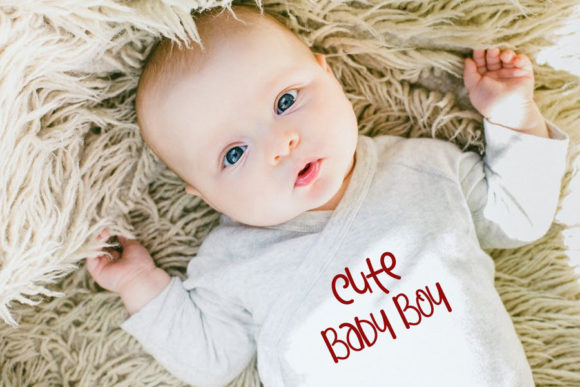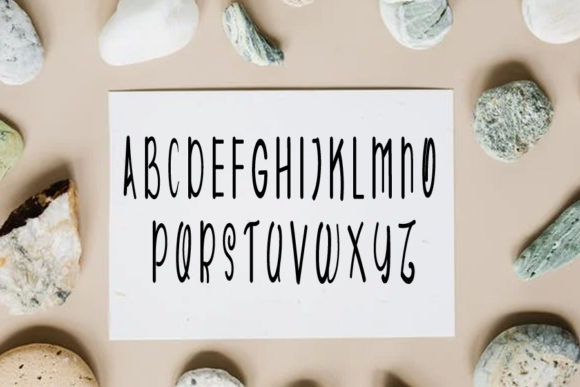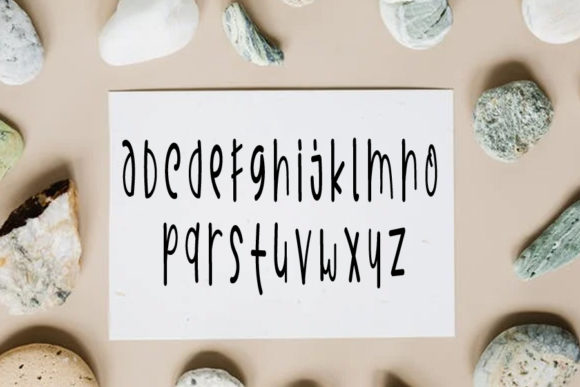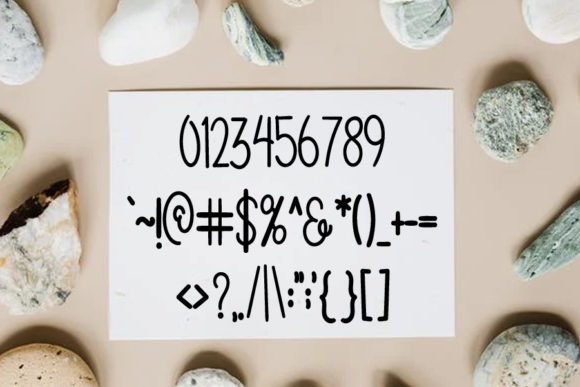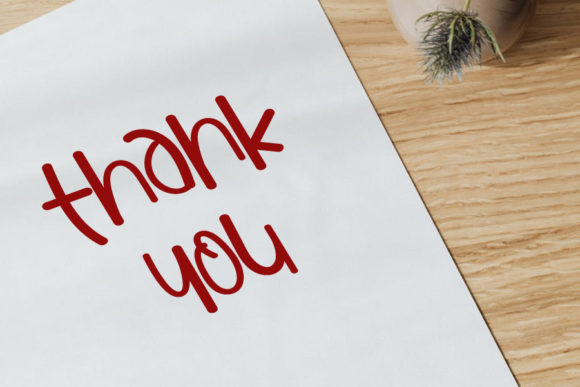
Unlock the Fun with Hello Kids Font
Remember the thrill of designing a new poster or flyer for a children’s event? The excitement of choosing the perfect font to capture the playful atmosphere and grab the attention of your young audience. For designers, selecting the right font can make all the difference in creating an impactful visual experience. That’s where the Hello Kids Font comes in – a cool, friendly, and trendy display font designed to add a touch of whimsy and fun to any design.
Whether you’re working on a project for a kids’ party, a nursery, or a children’s book, the Hello Kids Font is an invaluable tool for designers. Its versatility and charm make it perfect for a wide range of applications, from posters and flyers to digital graphics and print materials. With the Hello Kids Font, you can explore endless possibilities and bring your designs to life in a way that’s both engaging and memorable.
Hello Kids Font Key Features
- Font Family: Hello Kids Font is a sans-serif font family designed for children’s educational materials.
- Unique Characteristics: Features rounded edges and a child-friendly design, making it perfect for educational materials, children’s books, and websites.
Review of Hello Kids Font
Hello Kids Font is a fun, playful typeface designed specifically for children’s educational materials. I was excited to try it out, and here’s my honest review.
- The font is highly legible, making it perfect for young readers. The large x-height and open forms ensure that letters are easily distinguishable, even at small sizes.
- The font’s friendly, approachable nature is ideal for educational materials, creating a welcoming atmosphere for kids to learn.
- The font’s simplicity and consistency make it easy to use, even for designers who are new to typography.
- The font’s playfulness can come across as immature or childish in certain contexts, which may not be suitable for all educational materials.
- The font lacks the sophistication and elegance that some designers might look for in a typeface.
Overall, Hello Kids Font is a solid choice for educational materials aimed at young children. While it may not be the most sophisticated font, its legibility and friendliness make it a great option for creating engaging, easy-to-read content.
Getting the Most Out of Hello Kids Font
To maximize the effectiveness of the Hello Kids Font, consider the following tips:
- Use the font for titles and headings to create a clear visual hierarchy.
- Pair the font with simple, bold graphics to create a cohesive design.
- Experiment with different font sizes and colors to add visual interest.
The Hello Kids Font is ideal for:
- Children’s books and educational materials.
- Marketing materials for kids-related businesses.